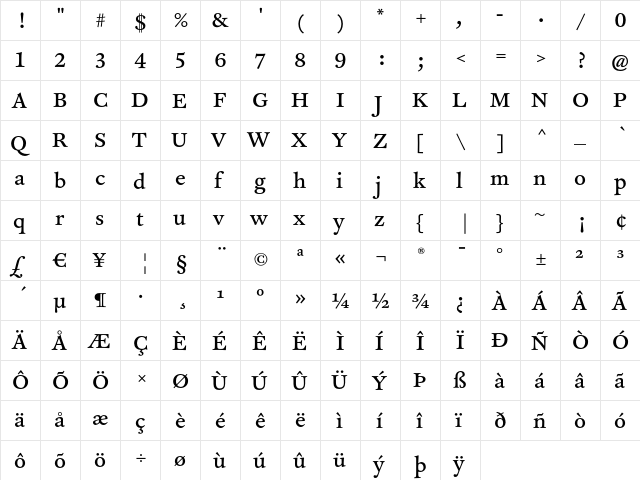
CliffordNine RomanLF Font Preview
CliffordNine RomanLF
CliffordNine RomanLF Font Details
Design Context for CliffordNine Typeface
CliffordNine is a composed and adaptable typeface that performs quietly and consistently across a wide range of design contexts.